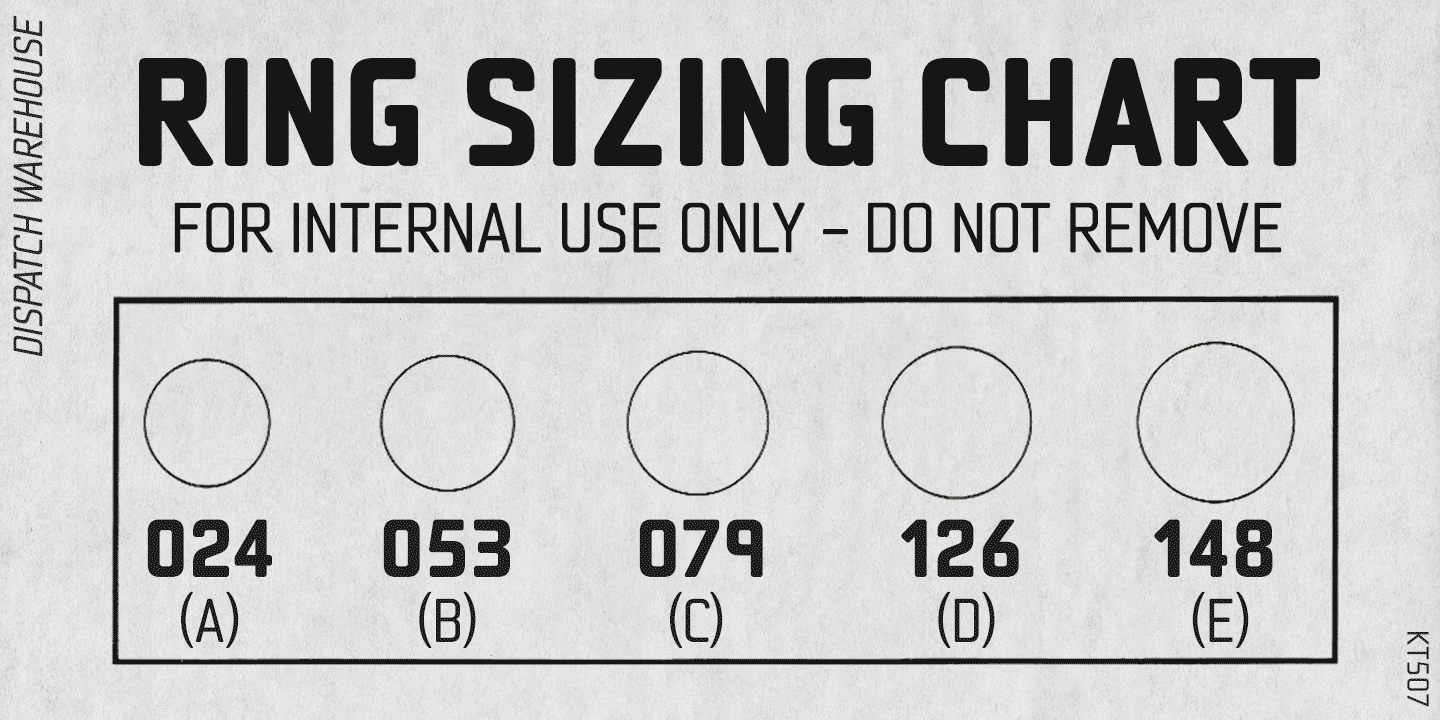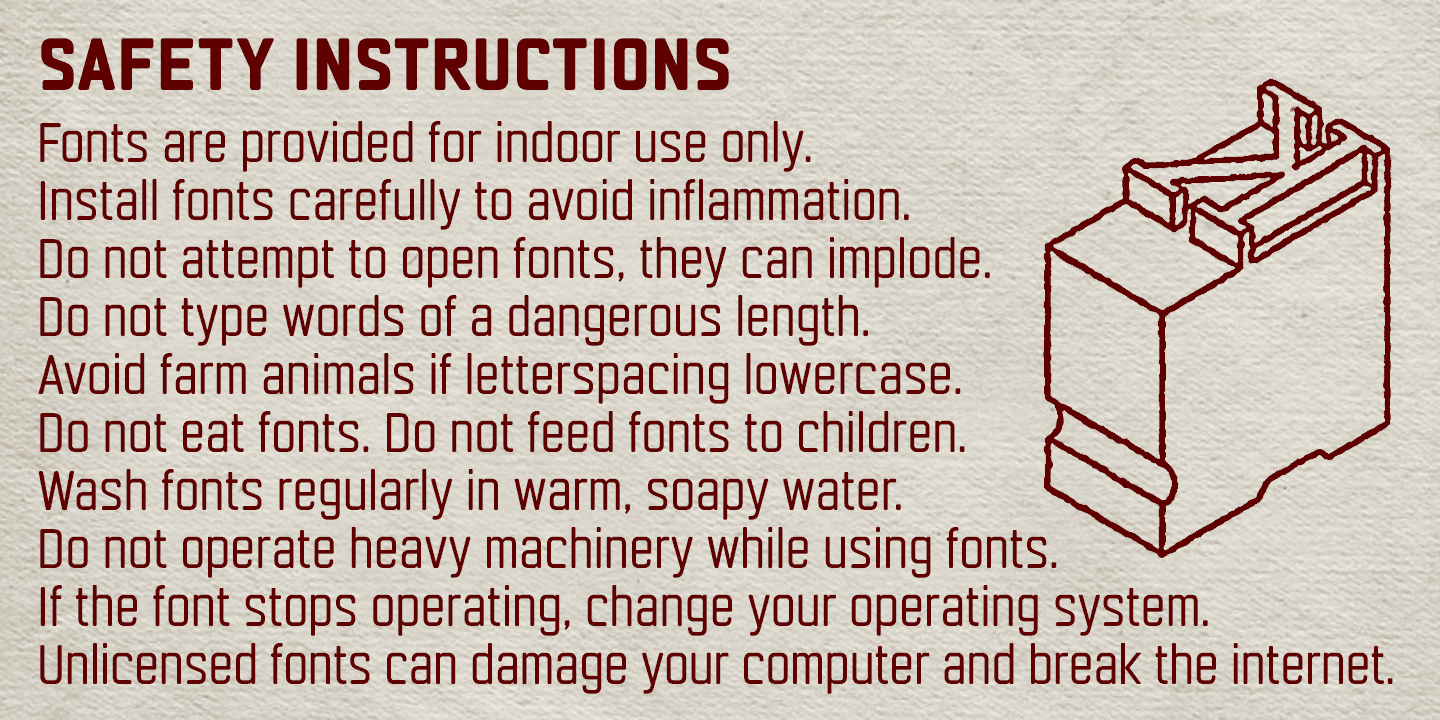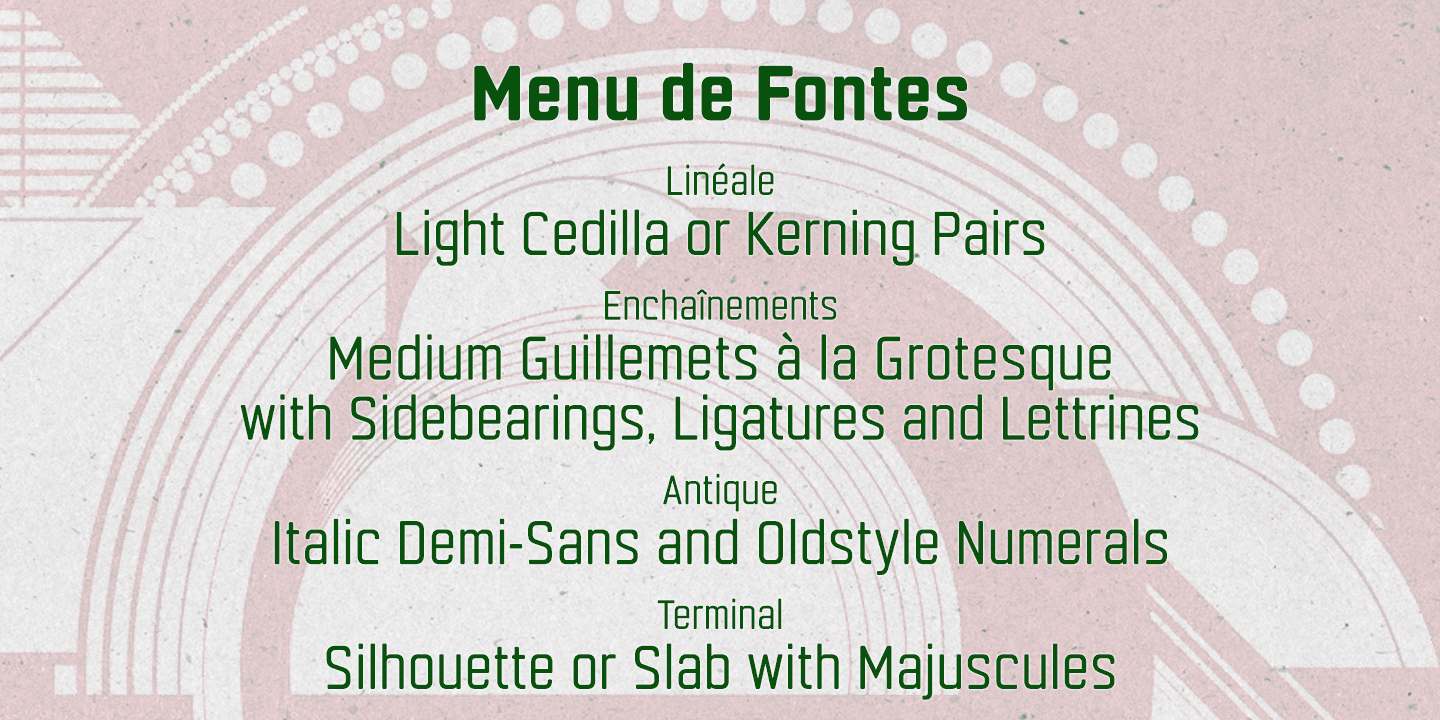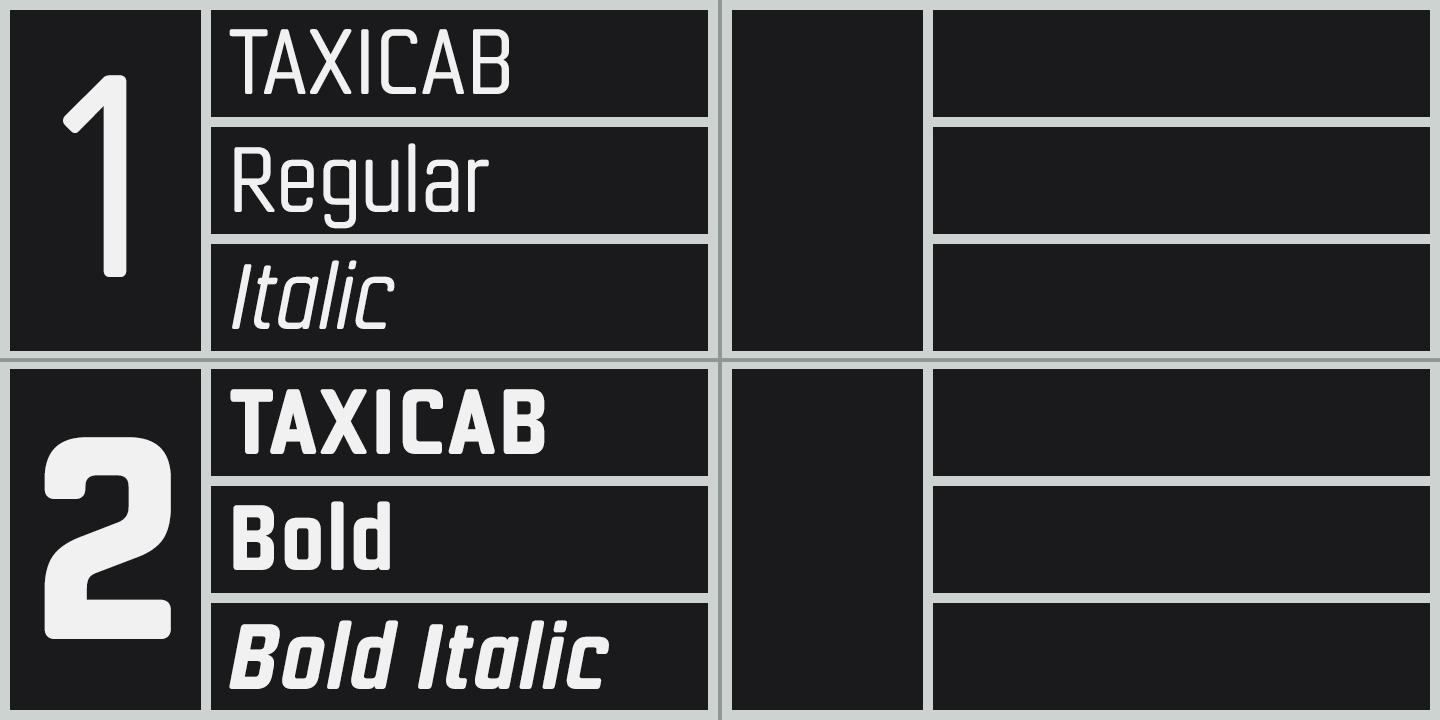
About Taxicab
Taxicab is a full typeface inspired by the soft, rounded capitals and numerals used for medallion numbers on yellow taxis in New York and the pressed metal license plate lettering used on vehicles around the world. Taxicab includes a proper lowercase…